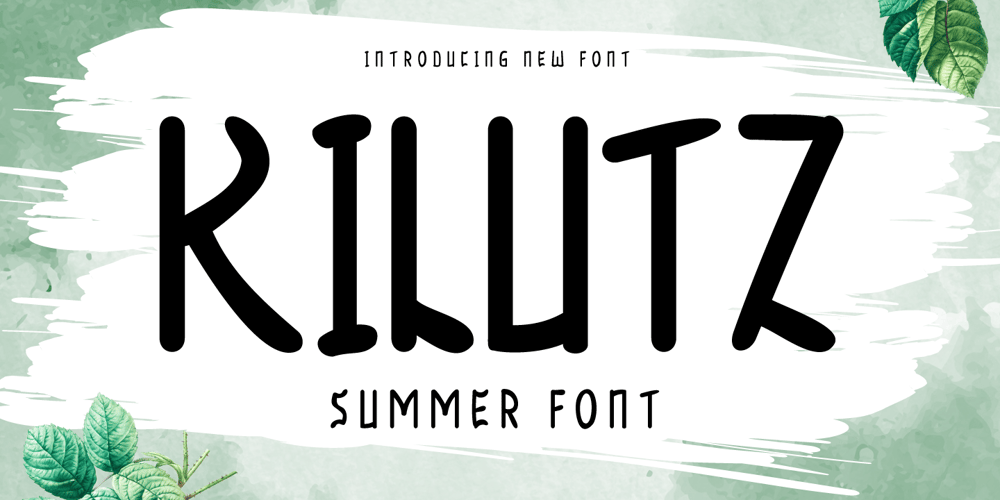
Kilutz Font Family was designed by Rozikan and published by Twinletter. Kilutz contains 1 styles and family package options. Introducing “KILUTZ Font” – The Essence of Summer Brought to Life.KILUTZ Font embodies the very spirit of summer, making it your go-to choice for infusing a touch of the season into your creative projects.What’s Included : File font All glyphs Iso Latin 1 Alternate, Ligature Simple installations PUA Encoded Characters – Fully accessible without additional design software. Fonts include Multilingual support